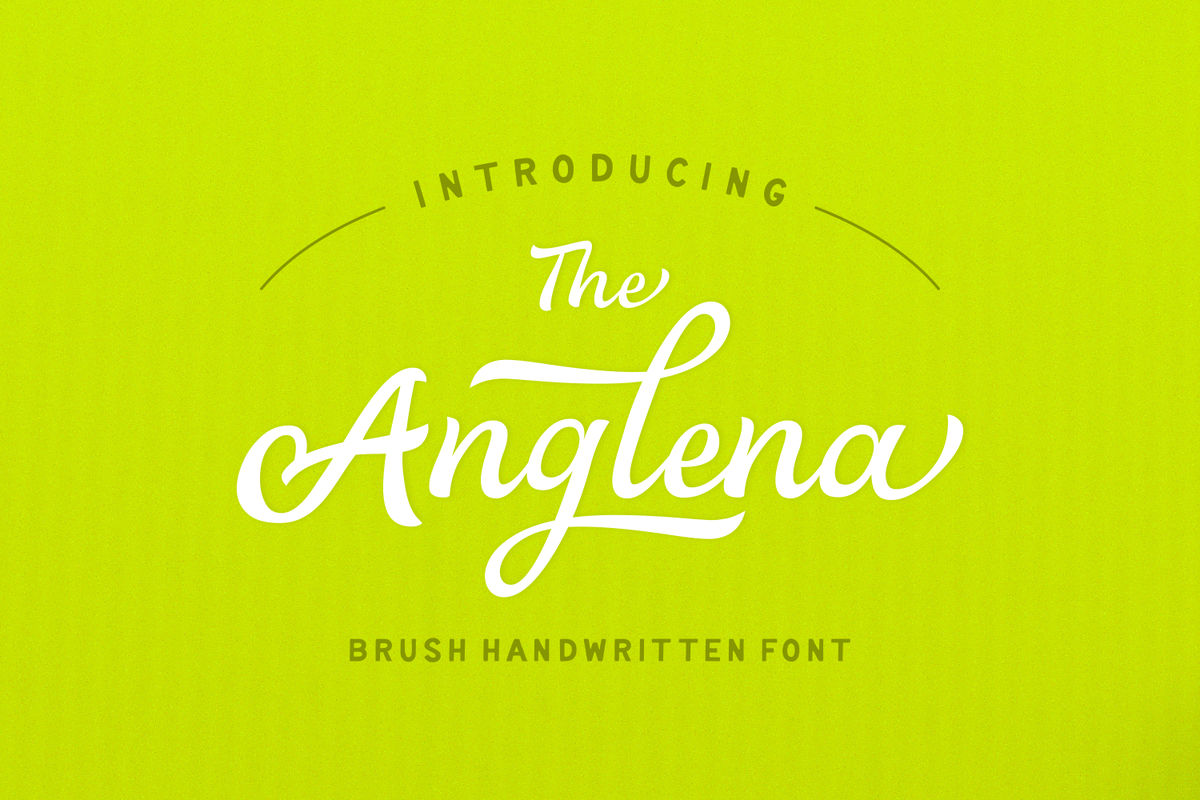
There’s nothing quite like the thrill of staring at a blank page, waiting for inspiration to strike. For designers, this moment can be a blessing and a curse – a chance to create something truly special, or a daunting task that seems impossible to overcome. But what if we told you that the perfect script font is just a click away? Enter the Anglena Font, a gorgeous, swashy script that’s sure to elevate any creative project.
Whether you’re working on a bright and modern brochure, a wedding invitation, or a social media campaign, the Anglena Font is the perfect choice. Its elegant, flowing lines and versatility make it an ideal font for a wide range of design projects. And with its modern aesthetic, it’s sure to make your work stand out from the crowd. For designers, the Anglena Font is a valuable tool that can help take your designs to the next level.
Key Features of Anglena Font
- Font Style: Elegant, Cursive Script Font
- Unique Characteristics: Includes 400+ glyphs, supports Latin, Cyrillic, and Greek alphabets, and features ligatures and swashes for a more elegant look
Anglena Font Review
First off, I have to say that I’m a big fan of the ✨ elegant and refined look of the Anglena Font. It’s perfect for any high-end branding or design project that needs a touch of sophistication. The font is highly legible and has a beautiful, cursive feel to it that’s sure to catch the eye.
- ✨ Elegant and refined design that’s perfect for high-end branding
- ✨ Highly legible, making it easy to read even in smaller sizes
- ✨ Beautiful, cursive feel that’s sure to catch the eye
However, I do have a few ⚠️ concerns with the font. For one, it can be a bit too ornate for certain designs, and may not be suitable for projects that require a more straightforward or modern look. Additionally, some of the characters may be a bit too similar, which can make them difficult to distinguish at smaller sizes.
Limitsations:
- ⚠️ May be too ornate for certain designs
- ⚠️ Some characters may be difficult to distinguish at smaller sizes
Overall, I think the Anglena Font is a great choice for designers who want to add a touch of sophistication to their projects. While it may have some limitations, it’s still a beautiful and highly legible font that’s sure to impress. Just be sure to use it thoughtfully and consider the needs of your project before making your final decision.
Anglena Font: A Practical Application Guide
Anglena Font is particularly suitable for creating elegant and sophisticated designs, such as wedding invitations, luxury branding, and fine art posters.
Anglena Font is ideal for creating high-end designs, such as magazine covers, book covers, and premium product packaging.
Anglena Font is suitable for creating professional and polished presentations, reports, and documents.
Tips for Getting the Most Out of Anglena Font
Use Anglena Font in combination with other elegant fonts to create a sophisticated look.
Experiment with different font sizes and colors to achieve the desired effect.
Use Anglena Font for headings and titles to add a touch of luxury and sophistication to your designs.